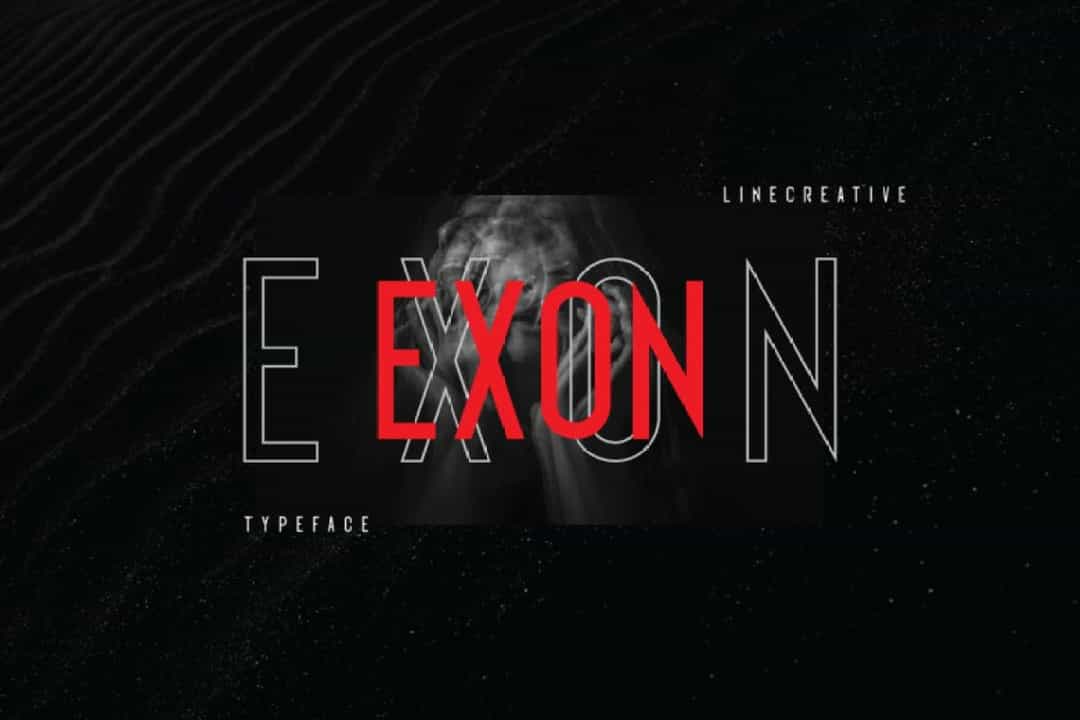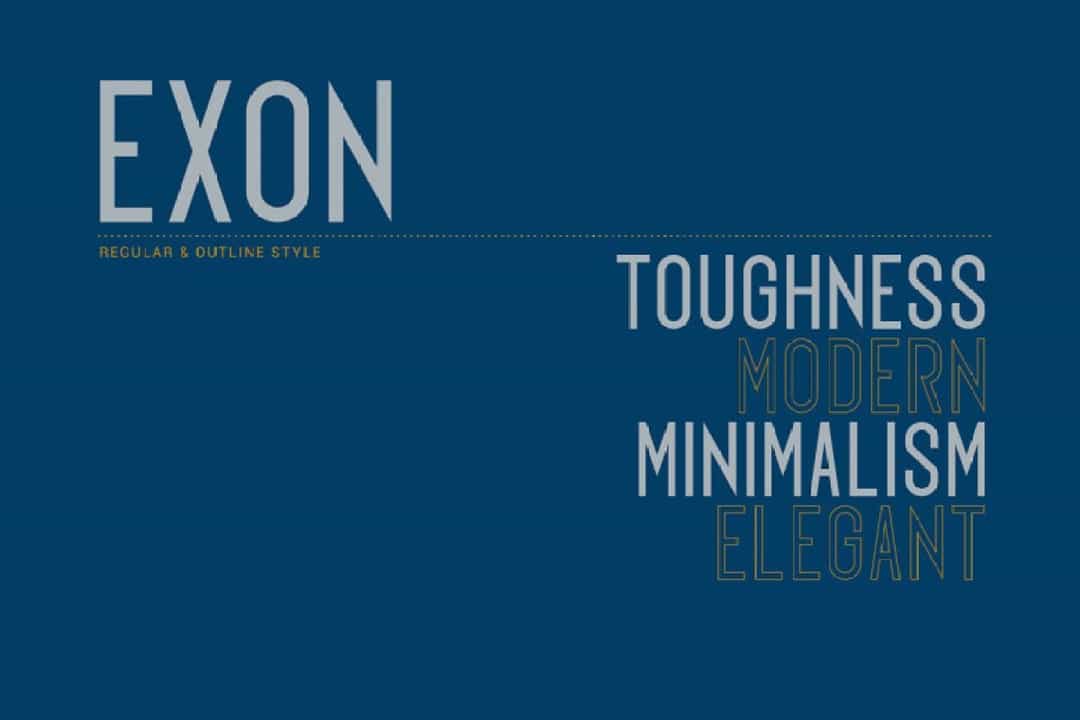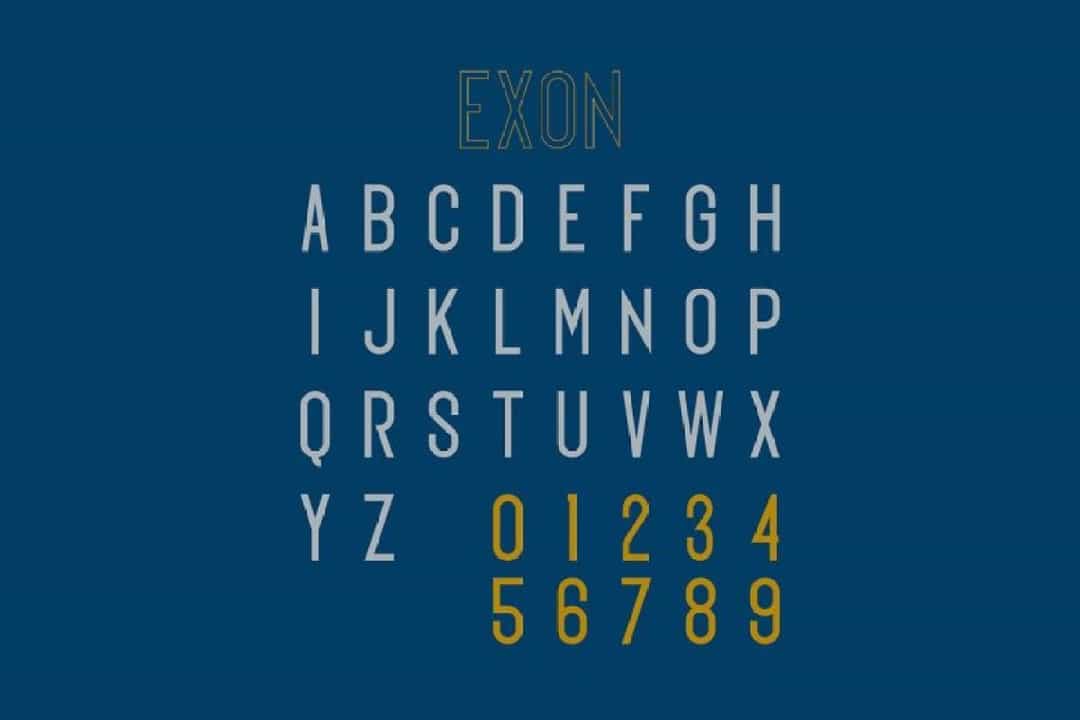
As for Exon Sans typeface, it has a neat, modest, and, most importantly, a minimalist design – and that’s why you should take it! It can be used in many graphic design works like headlines or posters; the graceful style makes it suitable for titles or posters. Also, it comes in Normal and Outline variants of Exon, which also makes it even better.